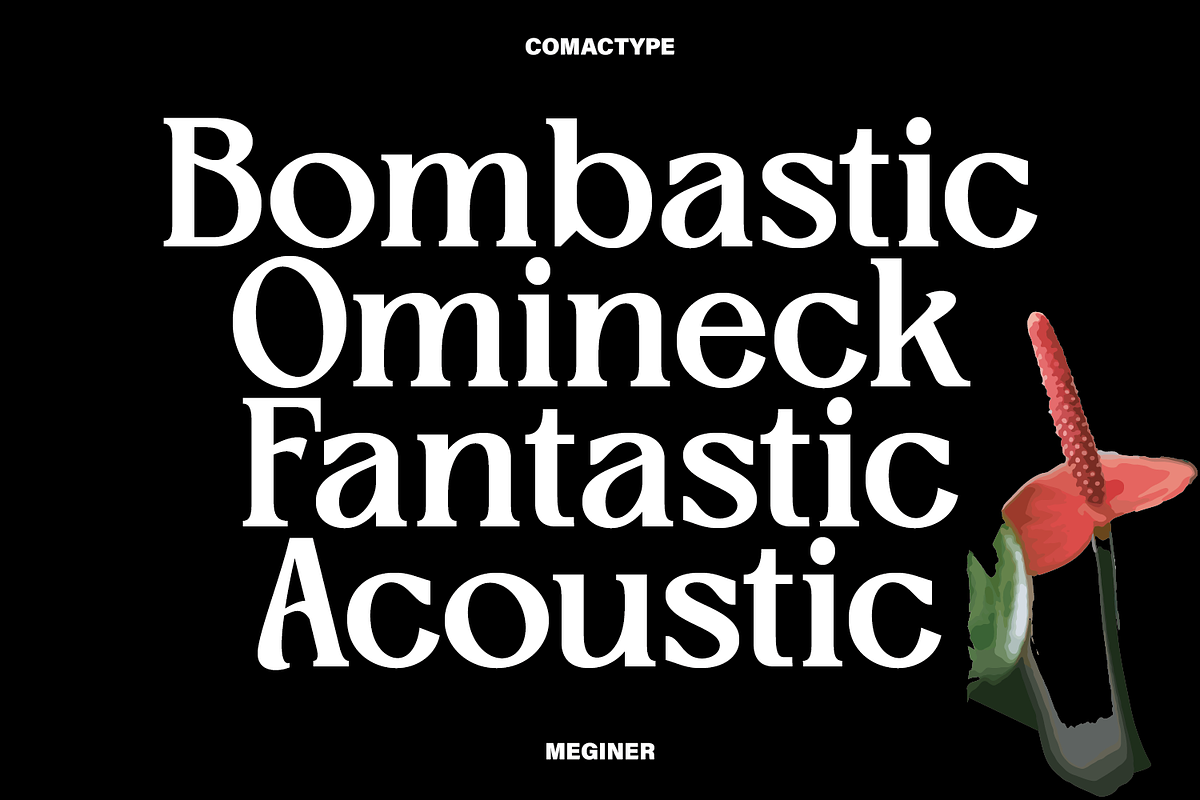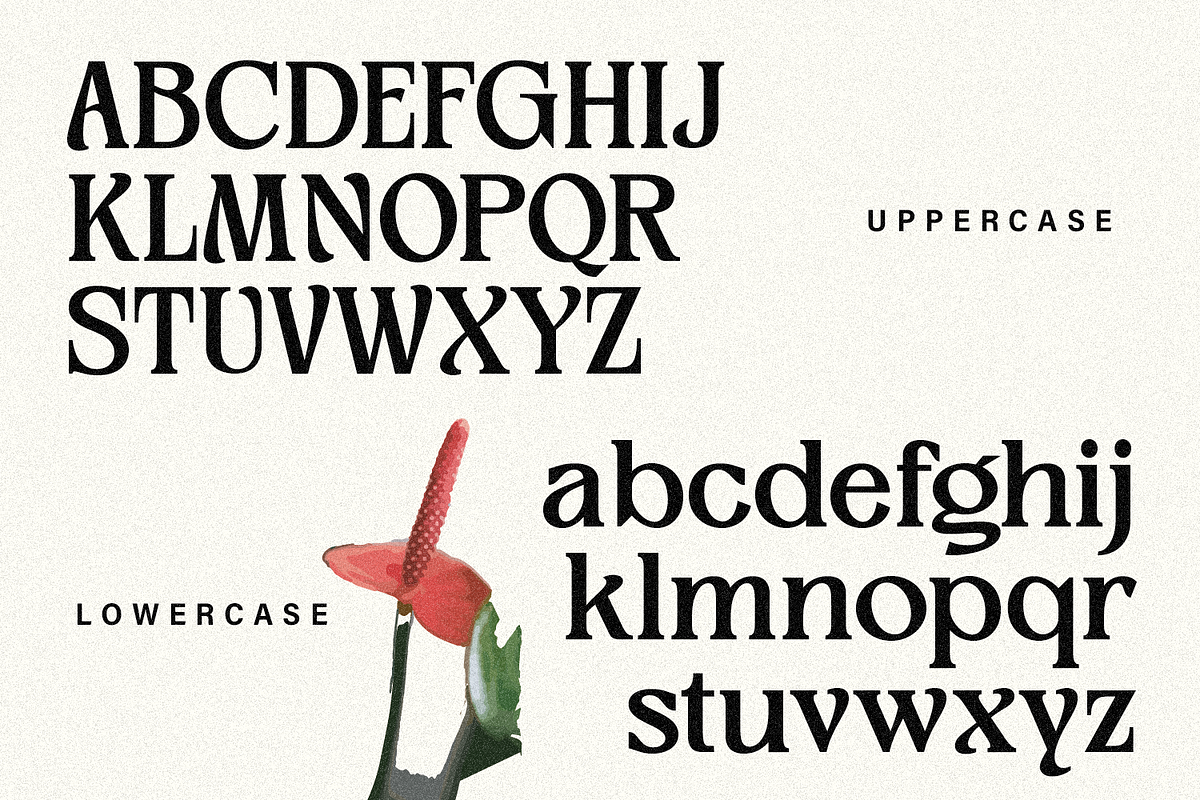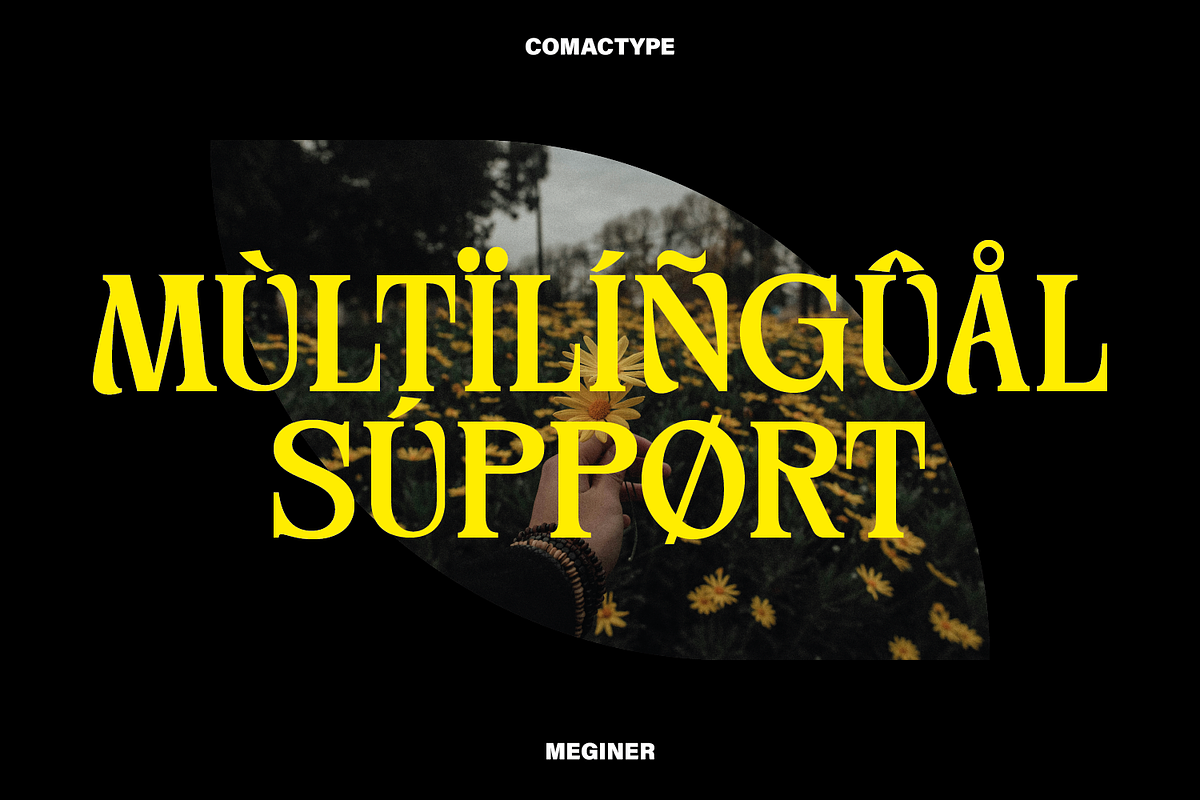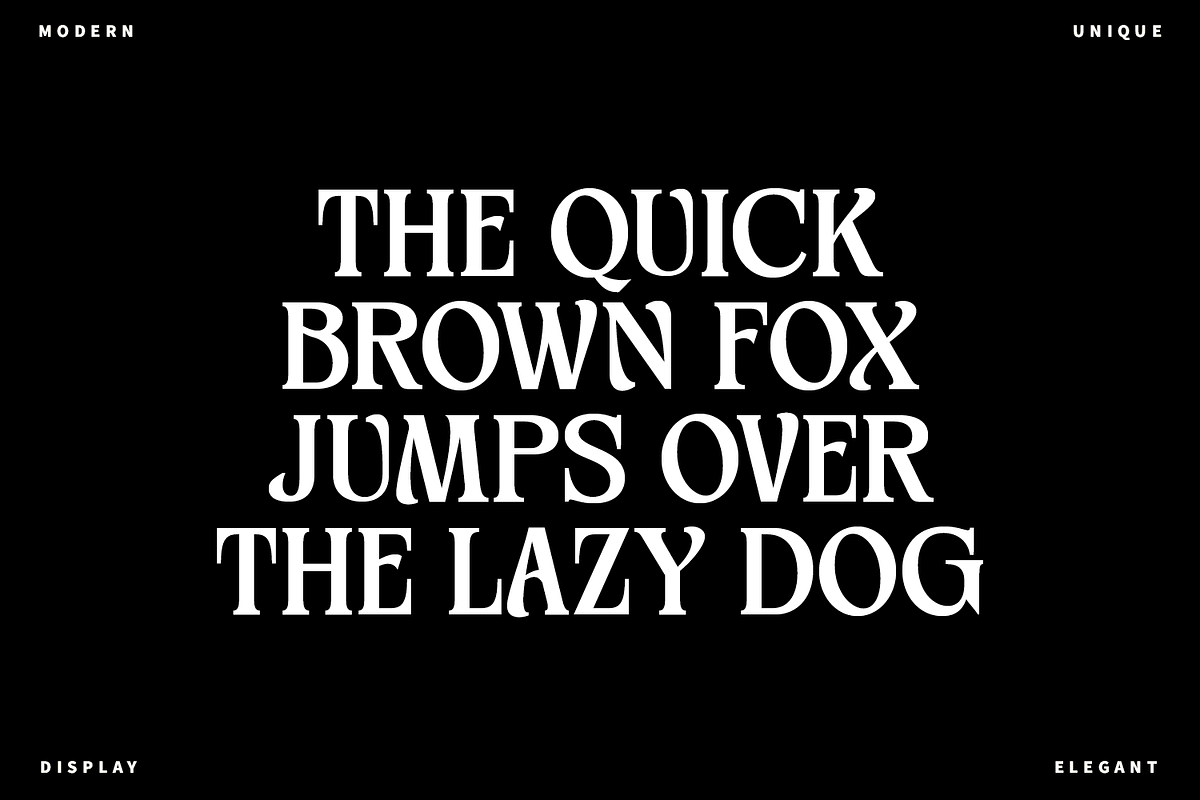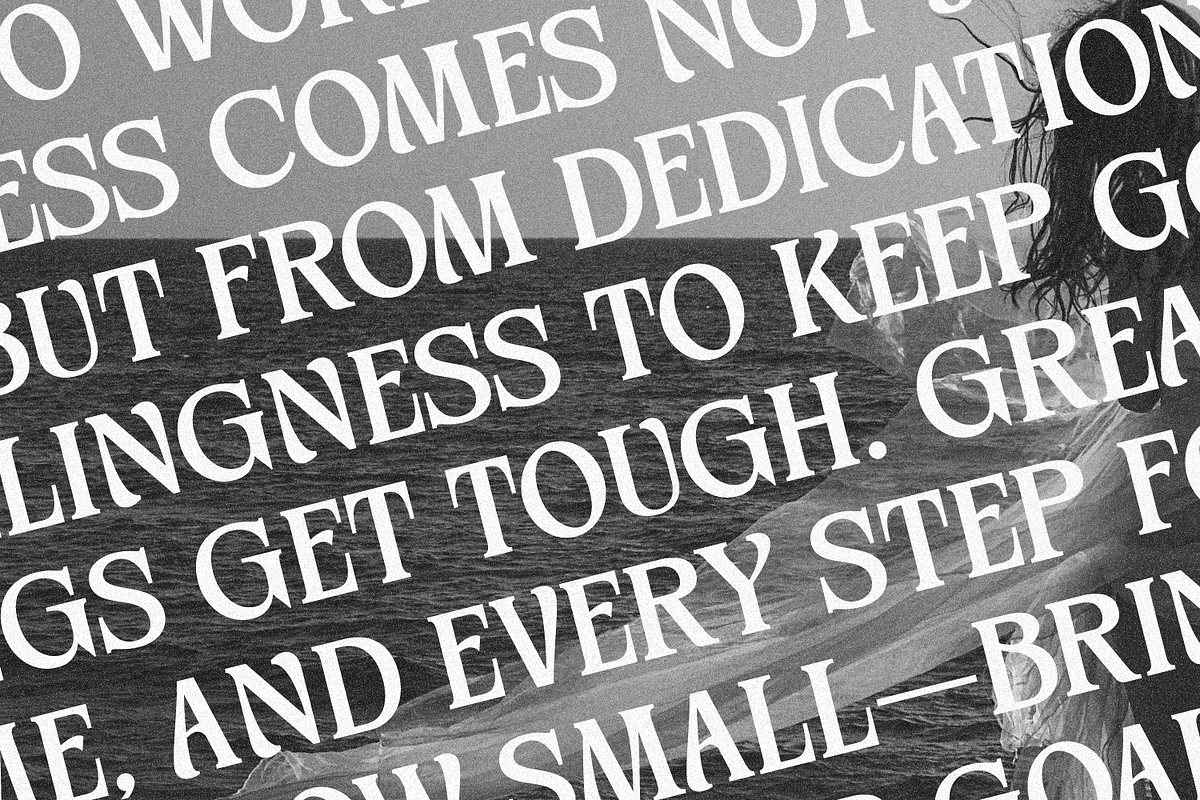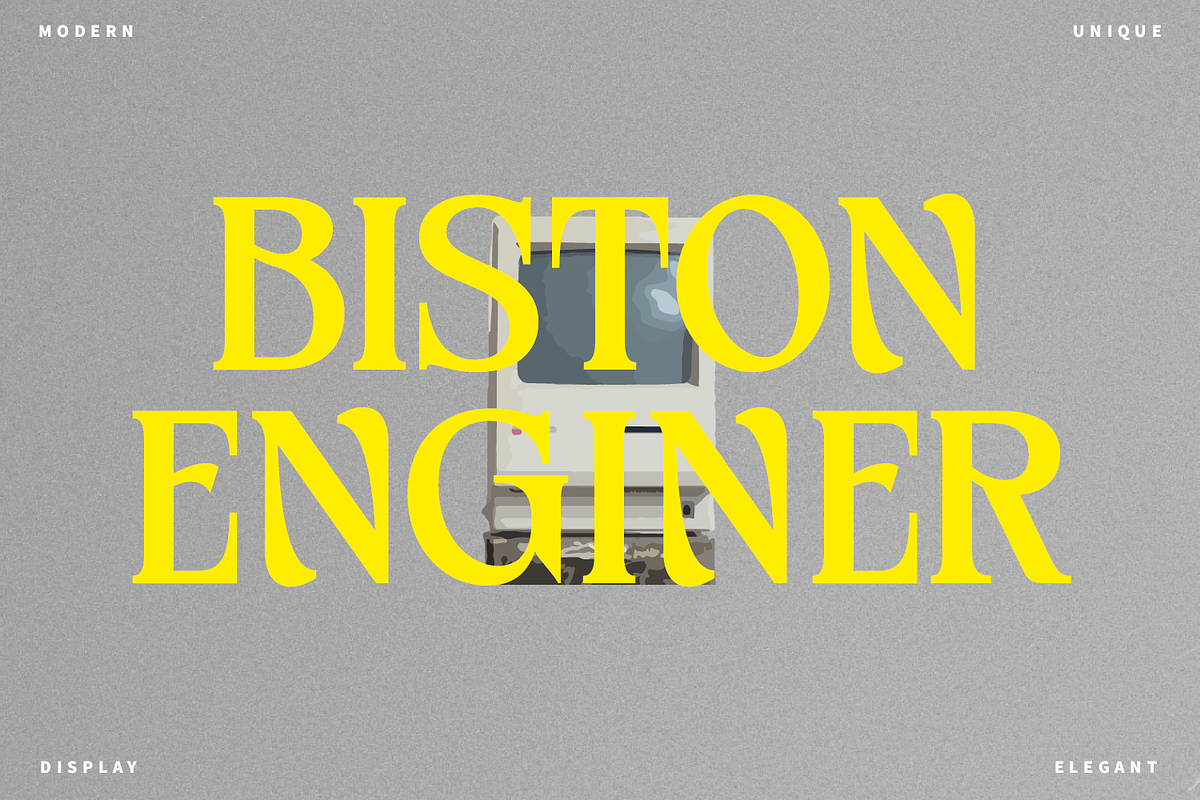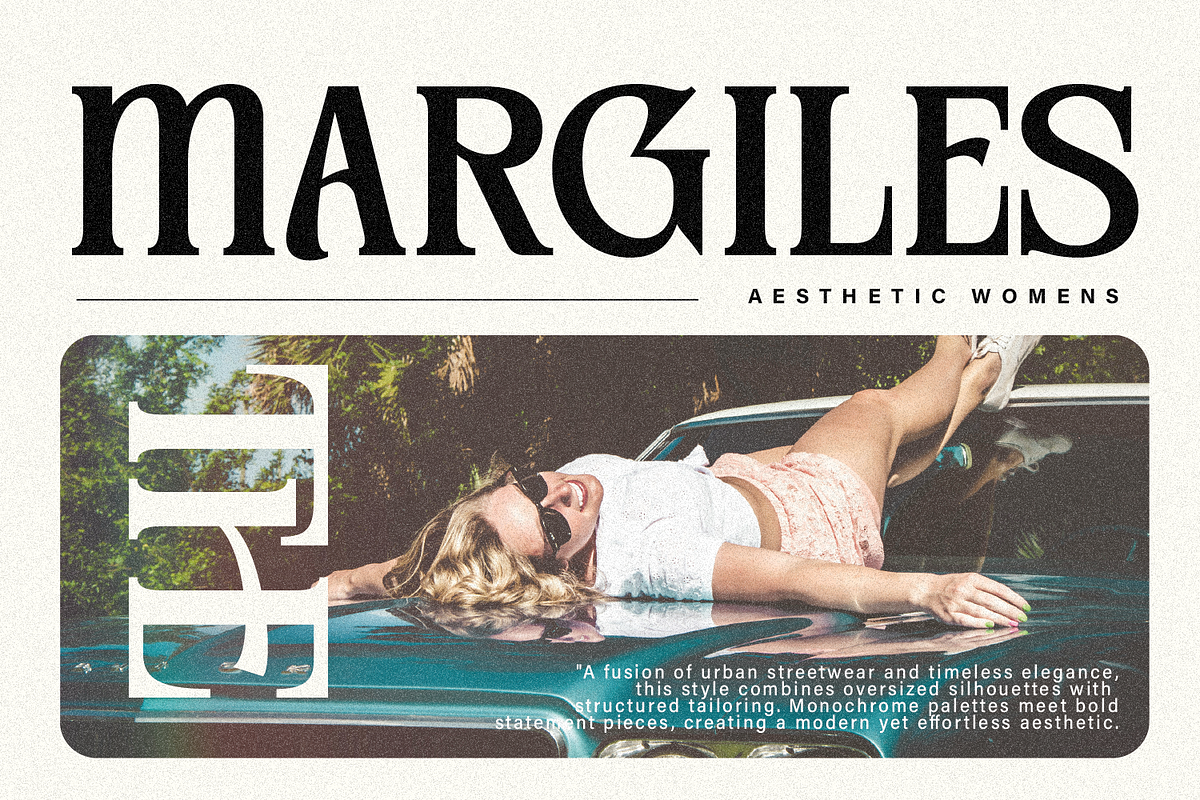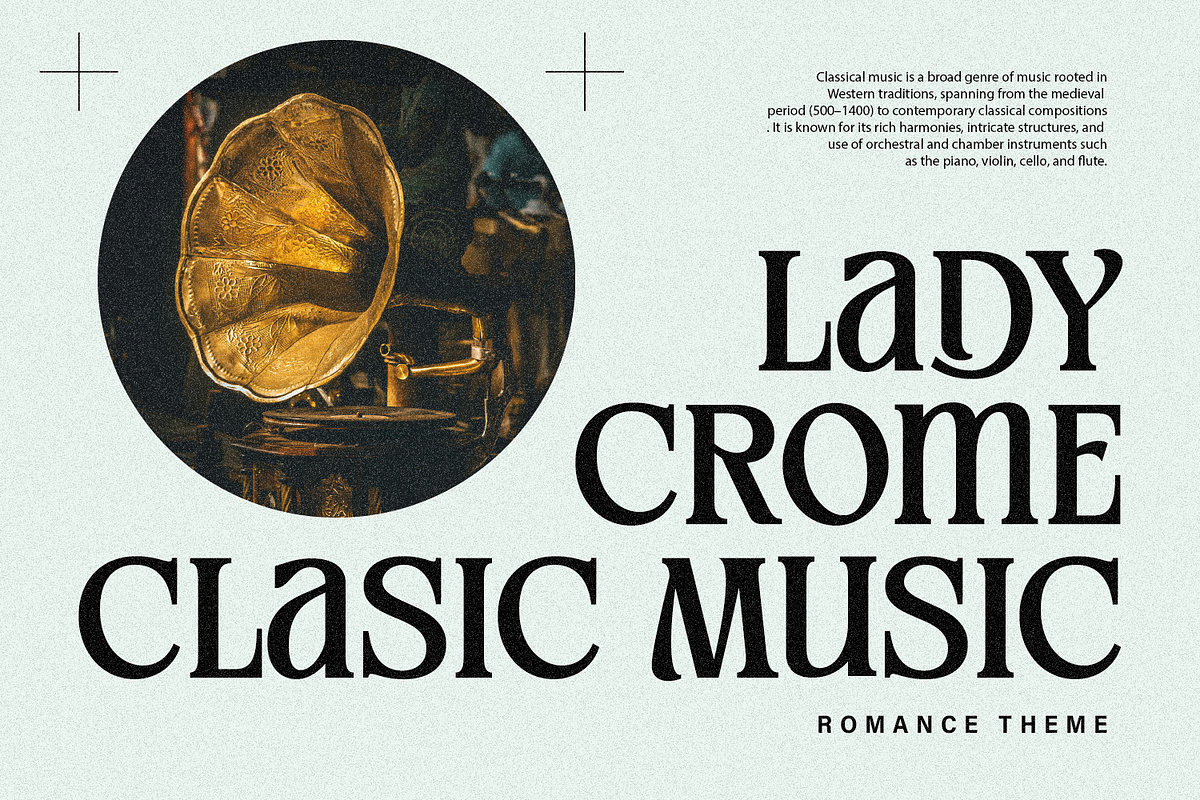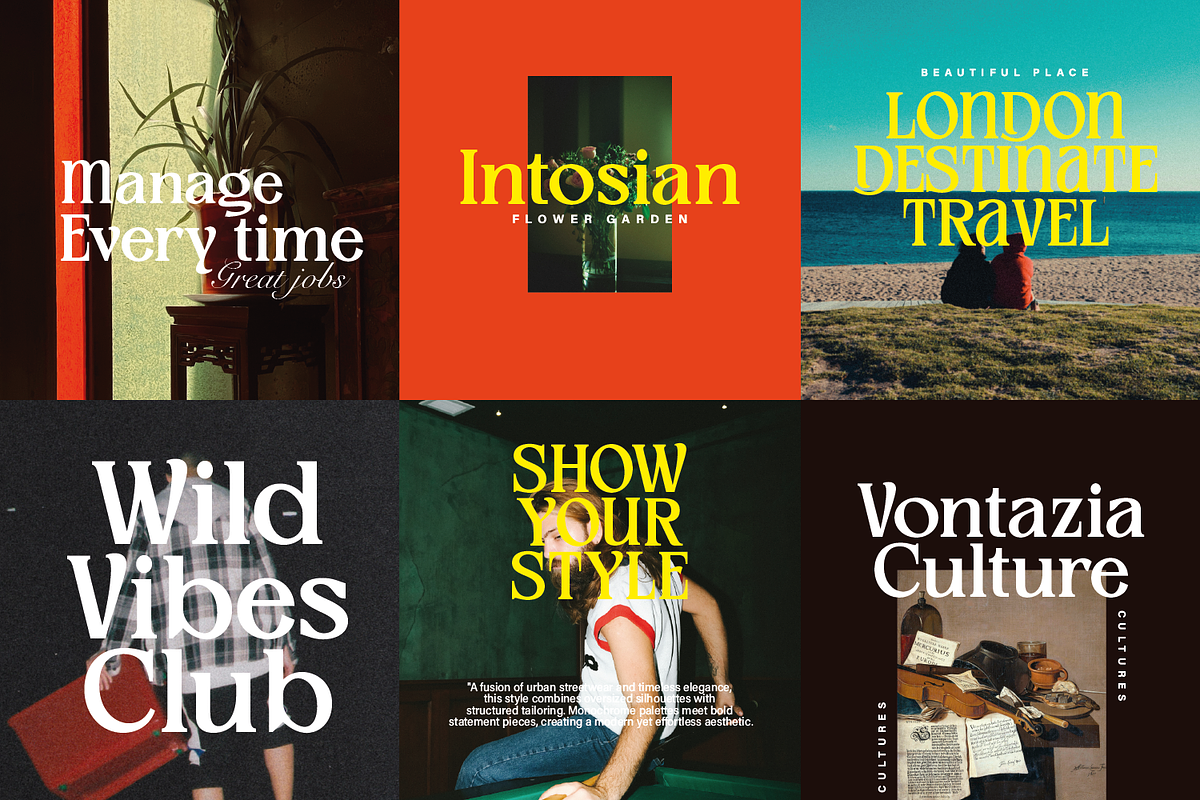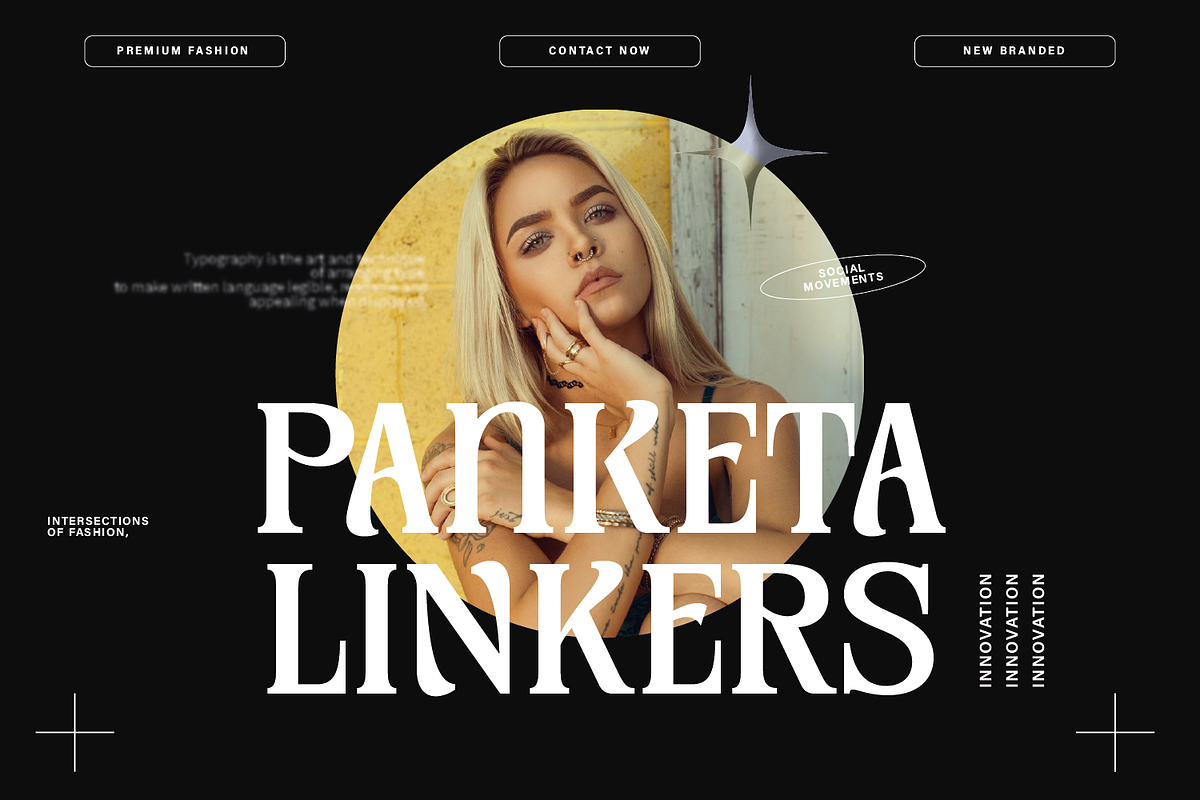
Meginer Nineties - Modern Serif
MEGINER NINETIES is a modern display serif font that blends classic elegance with contemporary energy. Designed by Comac Type, this typeface features bold letterforms with graceful curves, capturing the distinctive aesthetics of the 90s era. With a dynamic set of uppercase and lowercase letters, along with unique alternates and ligatures, MEGINER NINETIES offers exceptional versatility for various design needs. Perfect for premium branding, sophisticated editorials, eye-catching posters, and exclusive packaging, this font is ready to bring a dramatic and charismatic touch to any visual project.